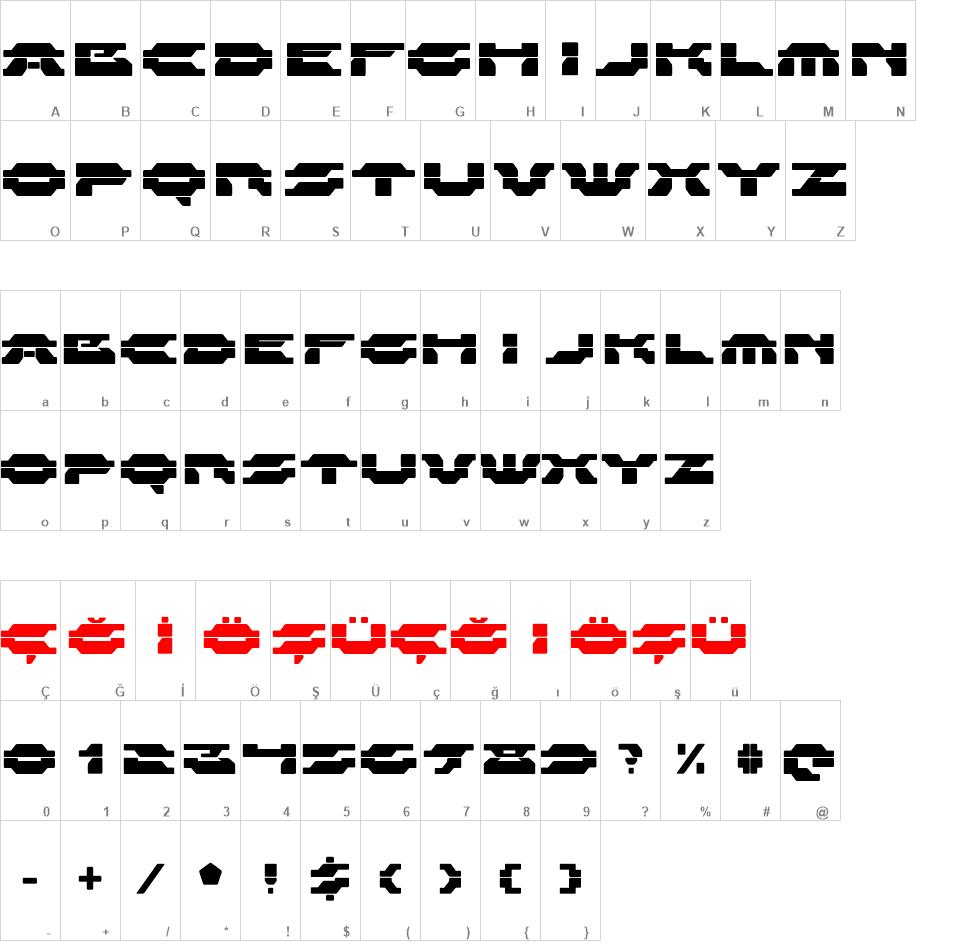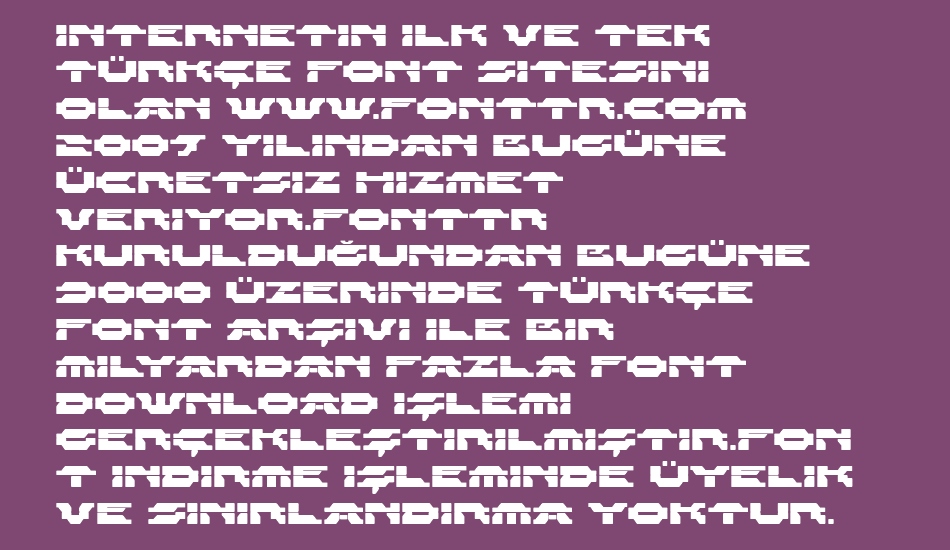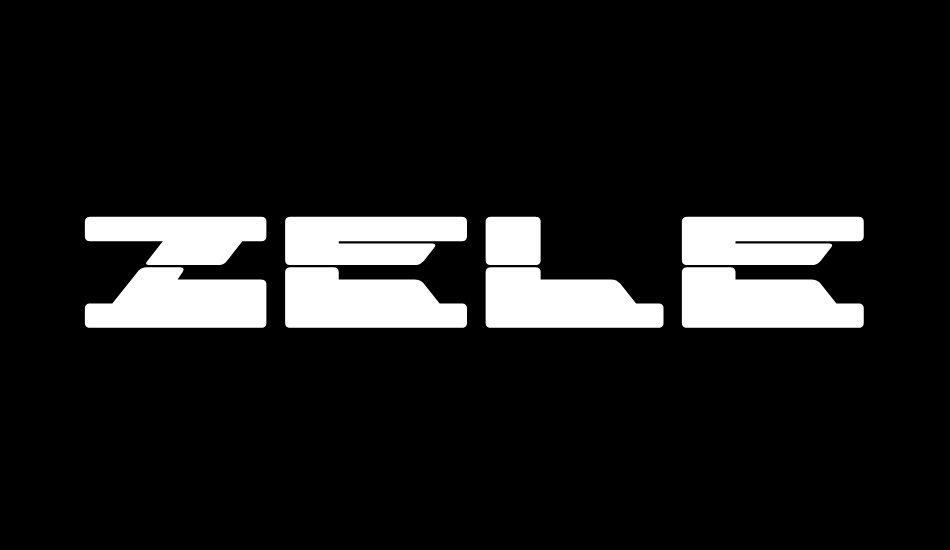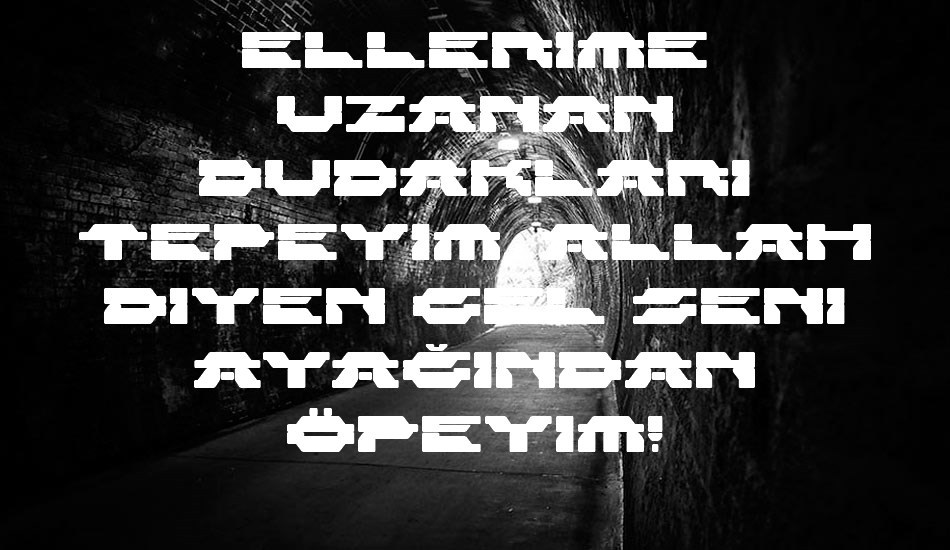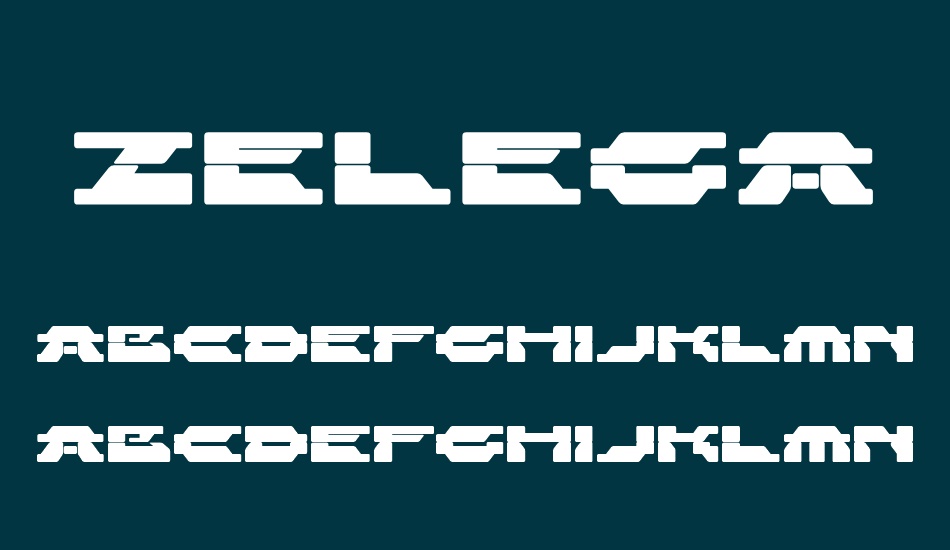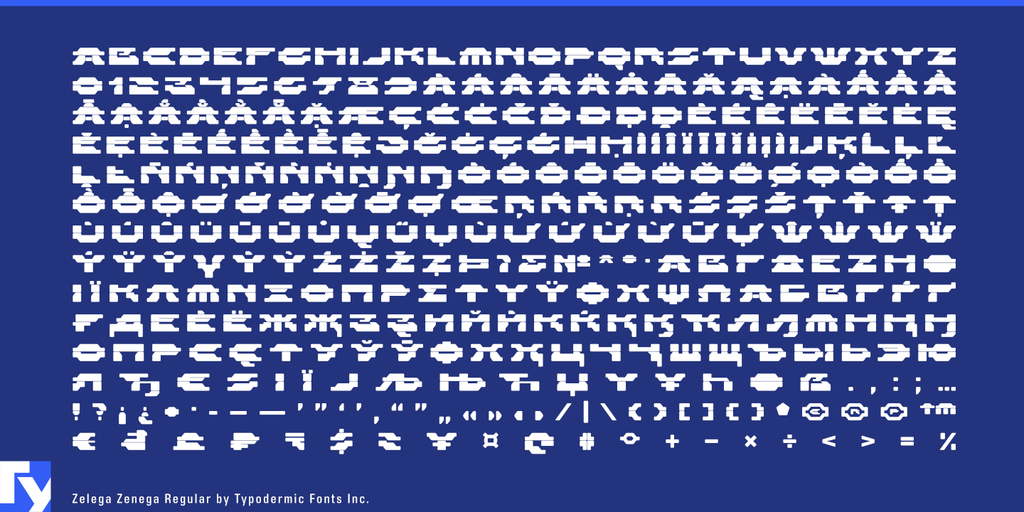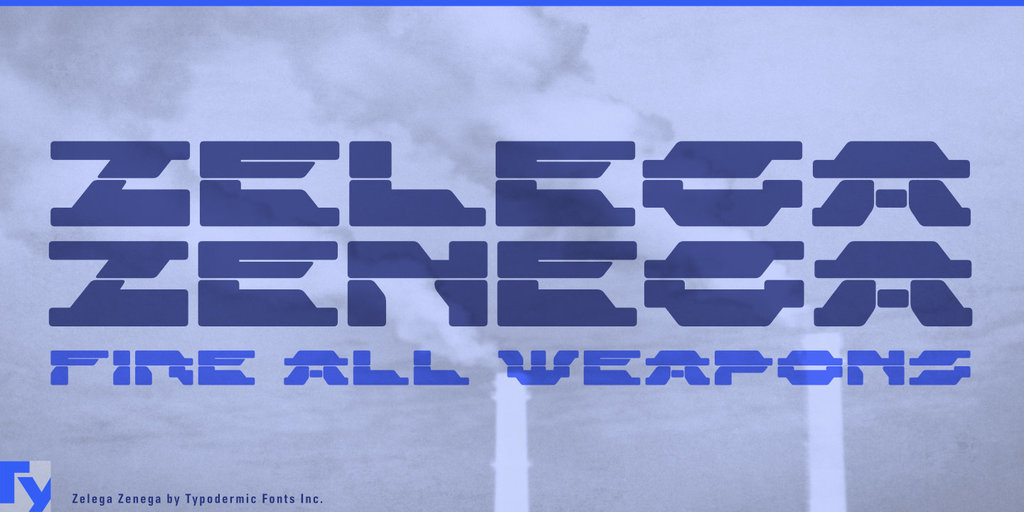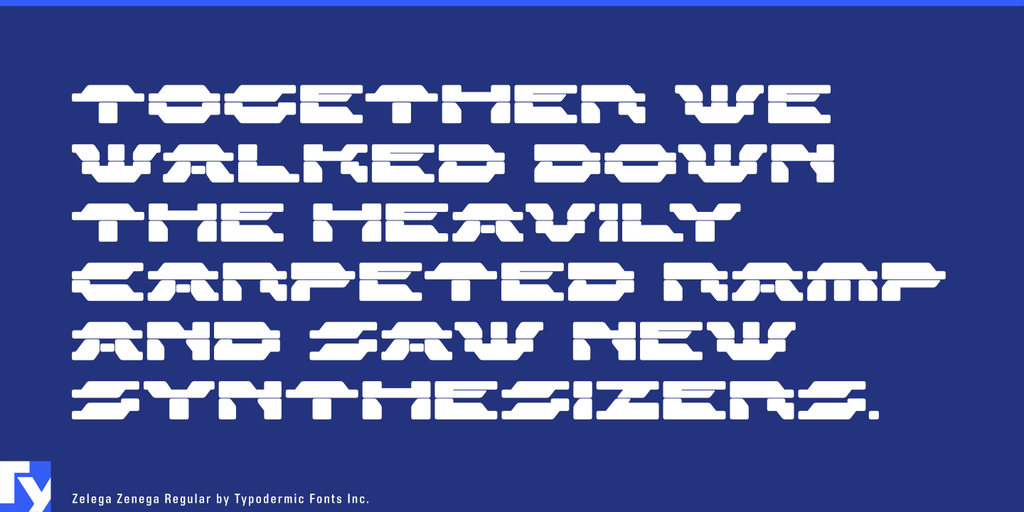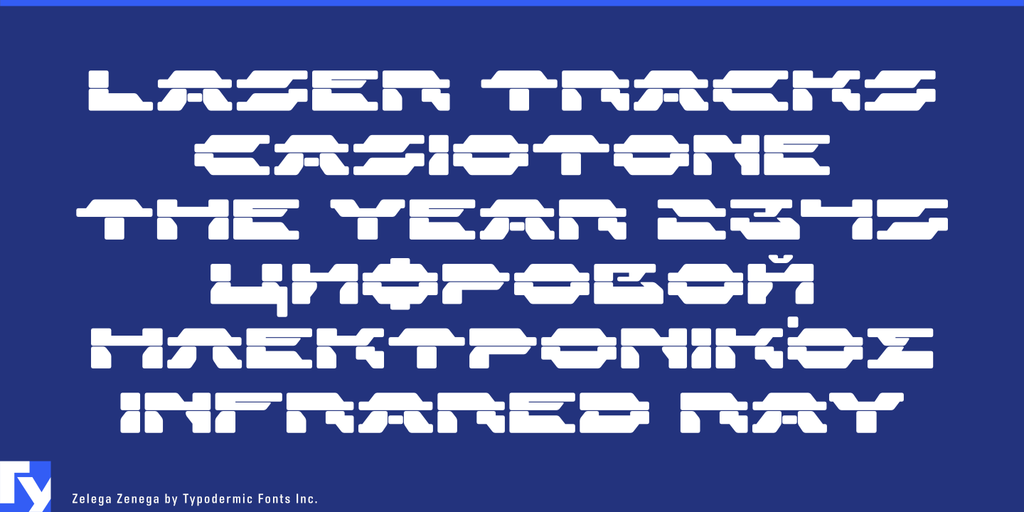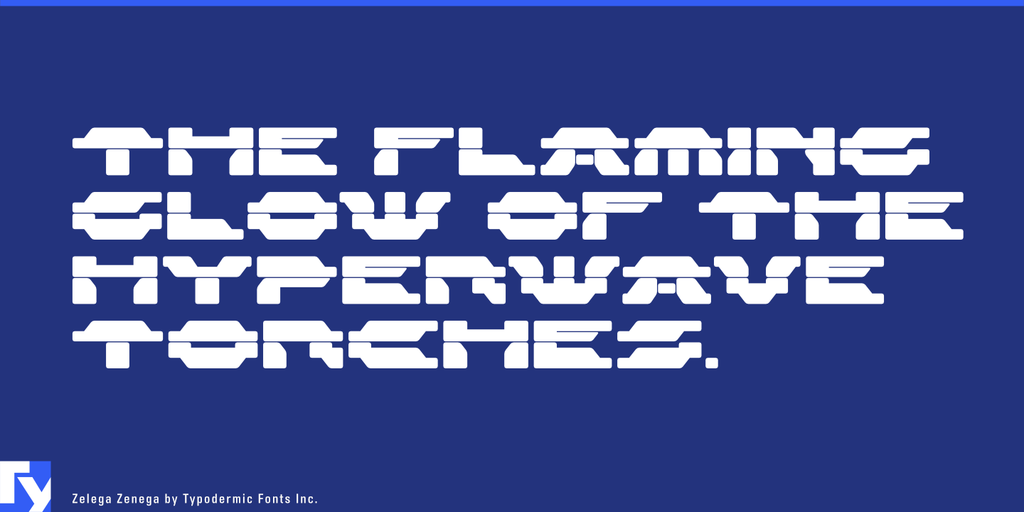
zelega zenga font
Zelega Zenga Font
Zelega Zenega is a wide, stark, industrial display typeface. Almost all current Latin based languages are supported, including Vietnamese, Cyrillic languages and Greek.
Zelega Zenega font